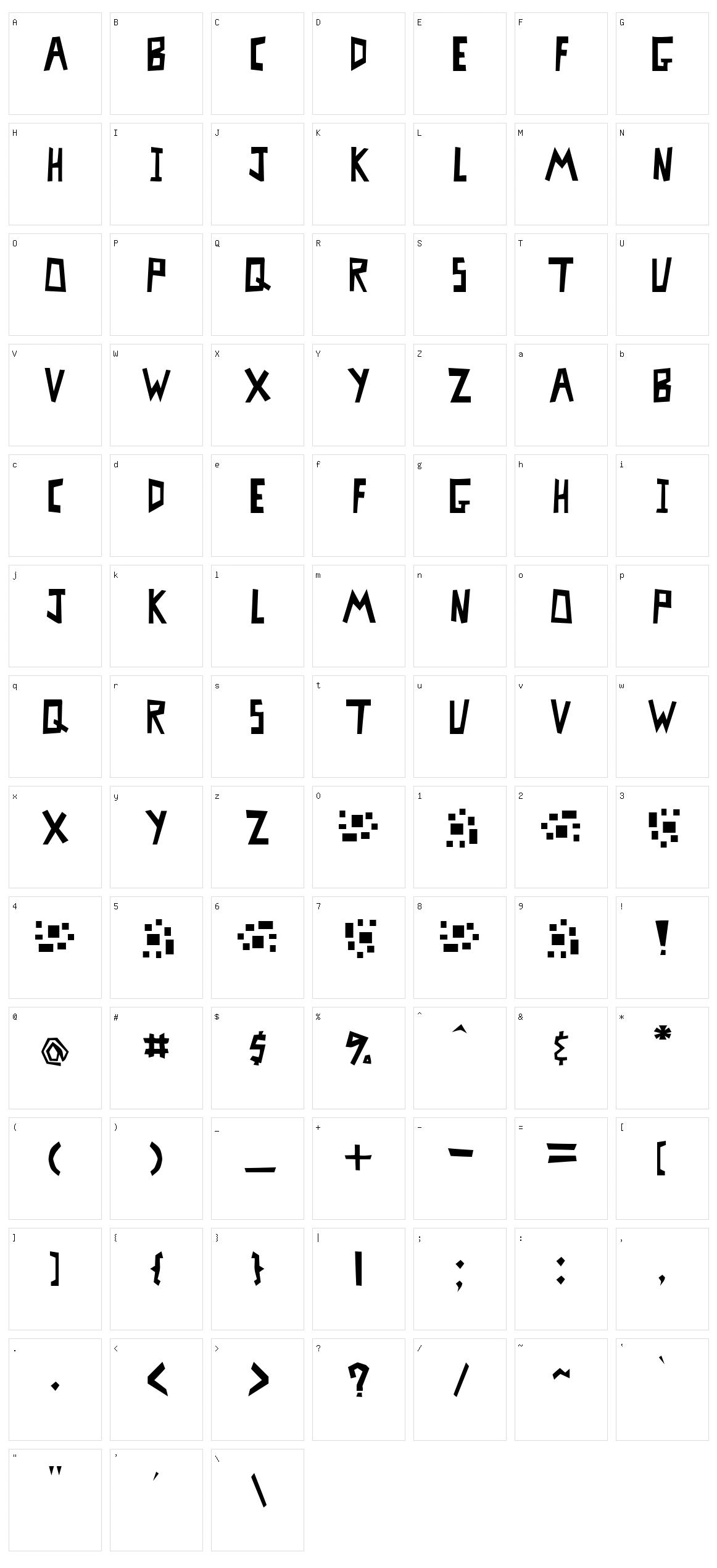
The free font MisterBass is carefully designed by William Clifford, showcasing a thoughtful balance of creativity and usability and falls under the Cartoon font style. When you download the ZIP file, it contains only 28.12 KB of font files, making it lightweight and quick to download. Please review the license details below to understand permitted usage and distribution rights. If license information is not available, we recommend using this font for personal projects only or contacting the author directly for commercial usage permissions.
This typeface does not have a complete character set.